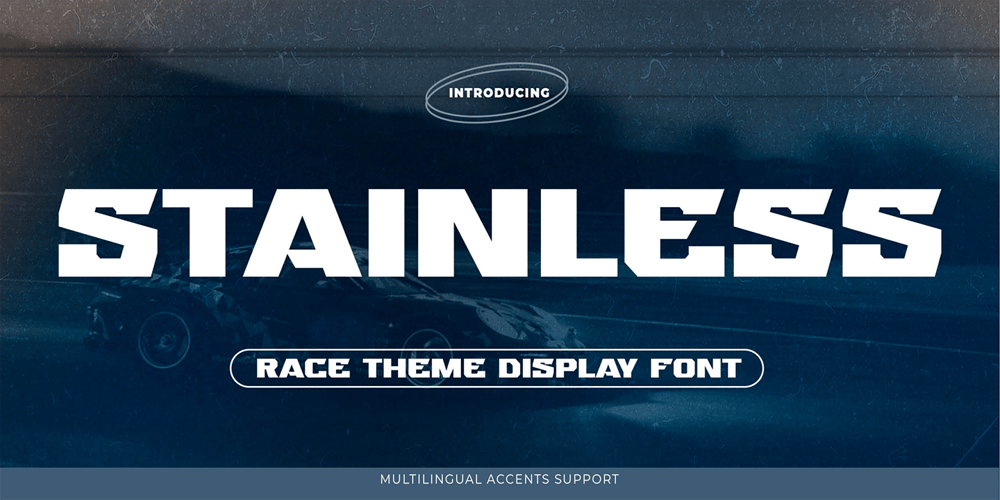
Stainless Font Family was designed by Abdul Malik Wisnu, Anang Fibriyanto and published by Gassstype. Stainless contains 1 styles and family package options. Here comes a New Font,Introducing Stainless is a Race Theme Display Font.This Handmade Display Font with a stylish touch inspired by the famous minimalist logo .Stainless has is perfect for the purposes of designing templates, brochures, videos, advertising branding, logos and more.